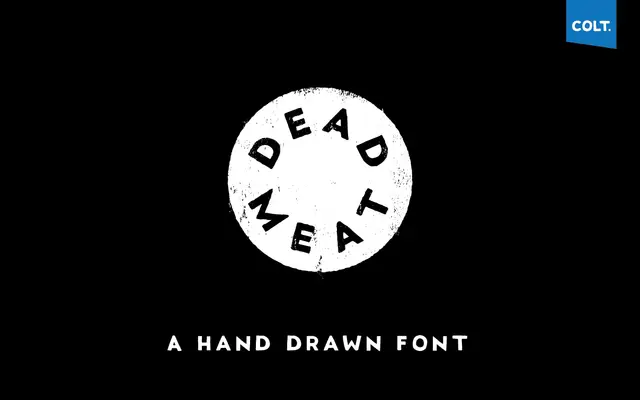
Dead Meat
An all-caps, hand-drawn display font with deliberately irregular letterforms aimed at titles, logotypes and t-shirt graphics.
Each glyph is drawn from hand-lettered originals, giving the uppercase set an uneven, organic character across letters and numerals. Lowercase keystrokes trigger alternate characters, offering a degree of variation in setting. Coverage is limited to Western European Latin characters, supplied as OTF and WOFF.
An all-caps, hand-drawn display typeface with deliberately irregular letterforms, placing it firmly in the display category with a hand-lettered subcategory.